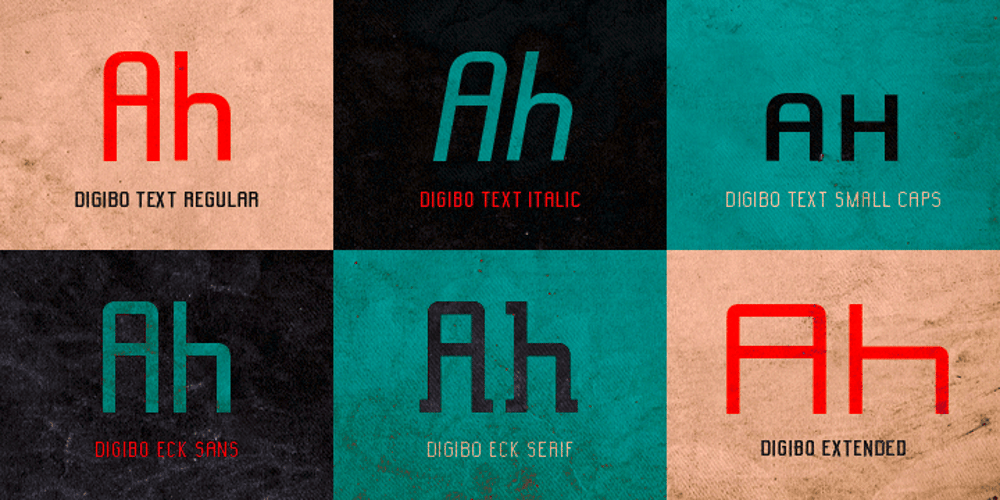
DigiBo Font Family was designed by Boris Kahl and published by Volcano Type. DigiBo contains 6 styles and family package options. Inspired by a scoreboard of the public transport in London our best selling font family is the basic font for the german magazine Starshot and even earned feedback from Sports Illustrated. The technical look of the entire DigiBo family is making the font a worthy member of the Eurostile / DIN -league.